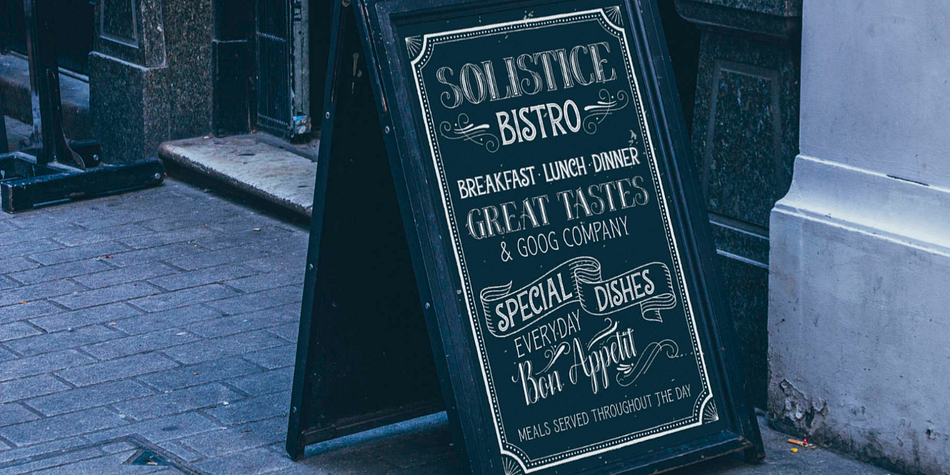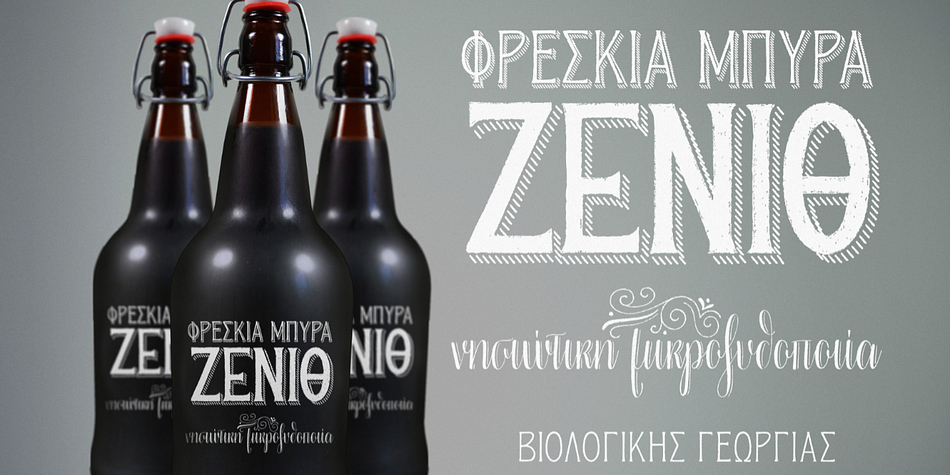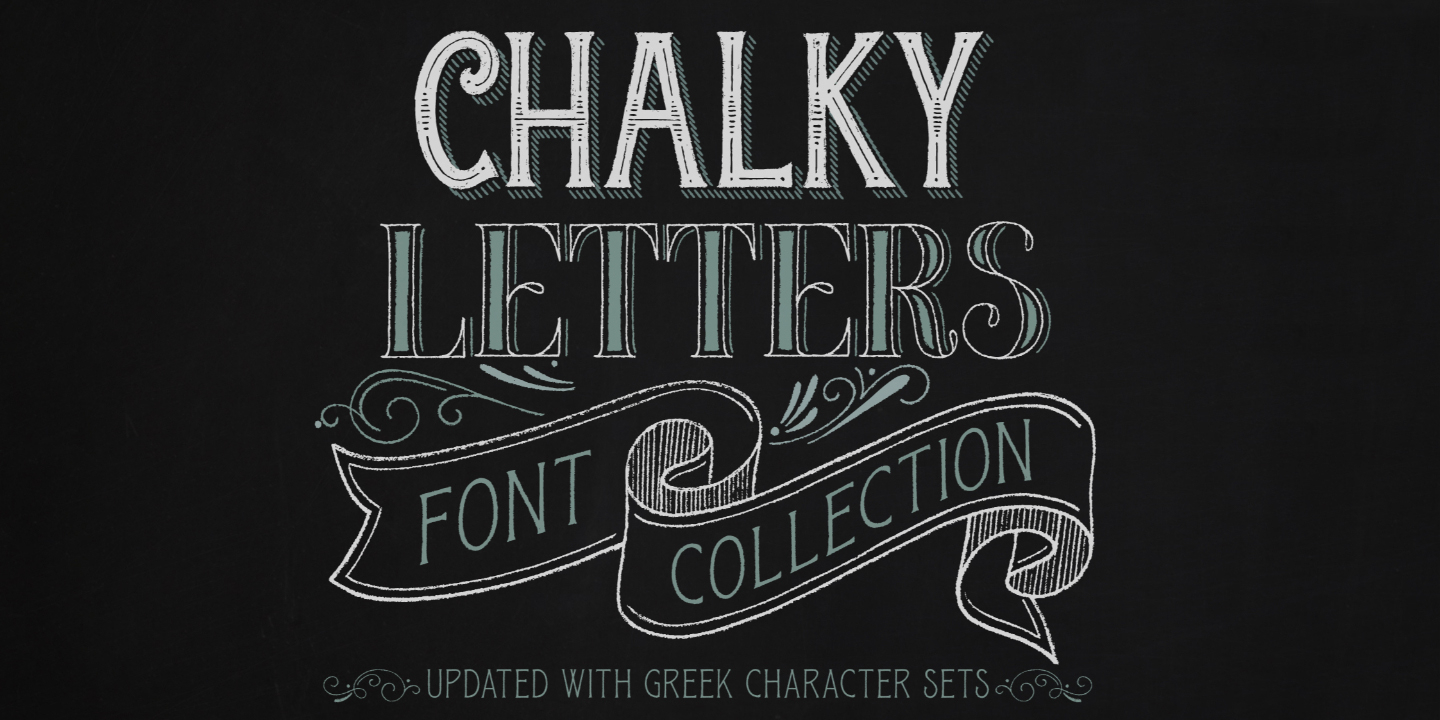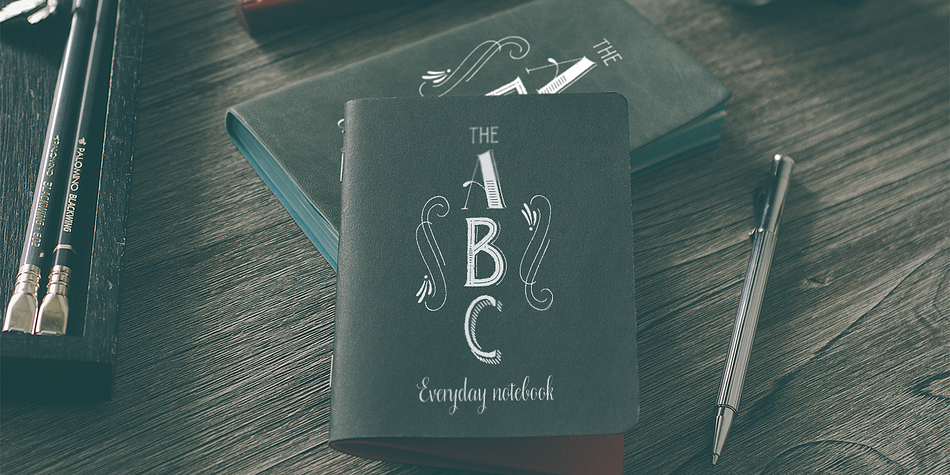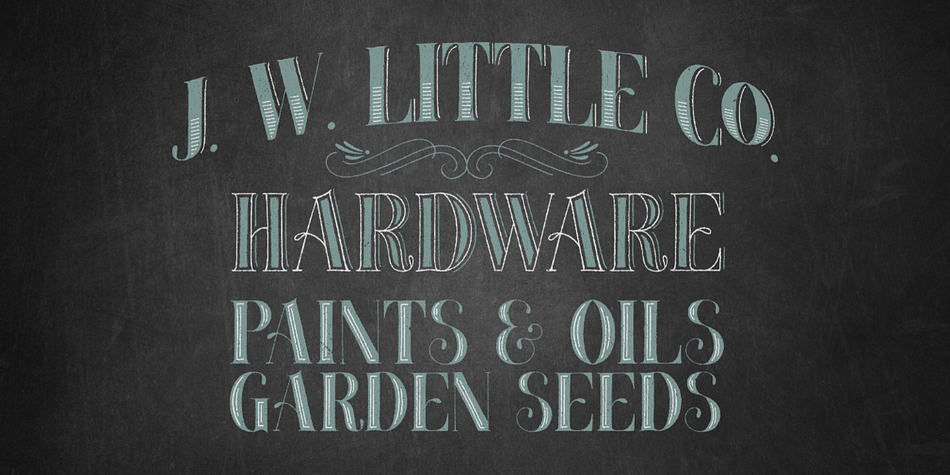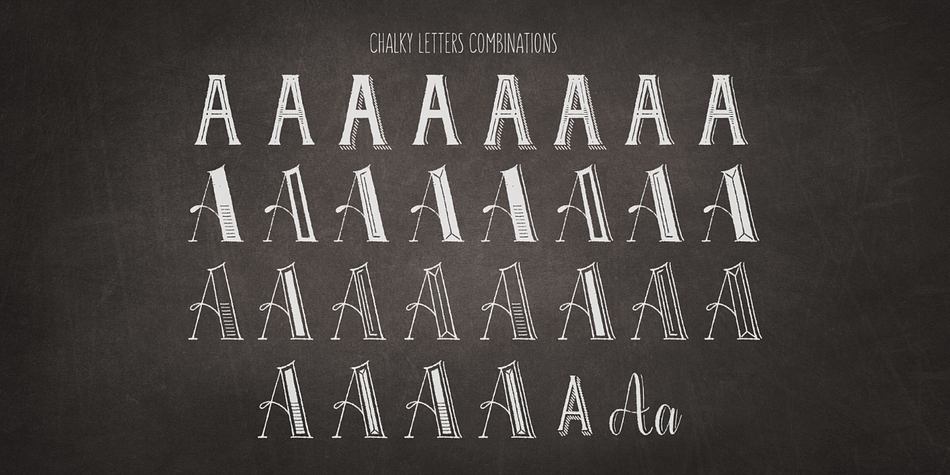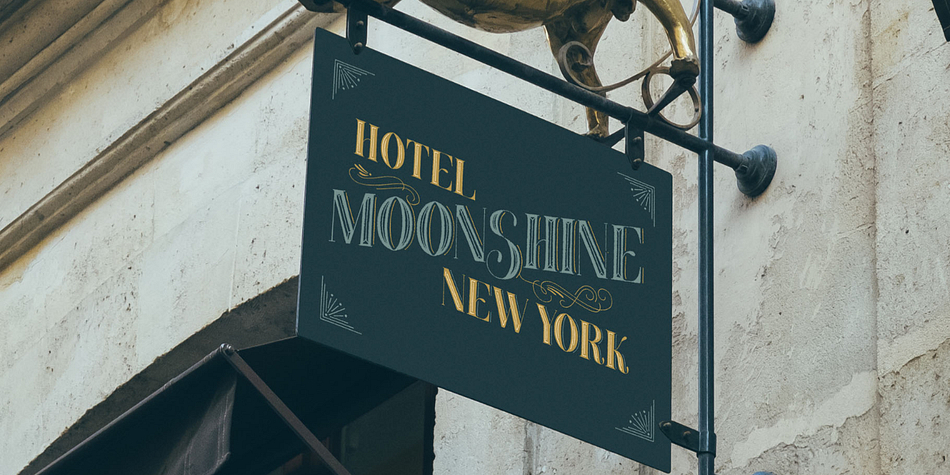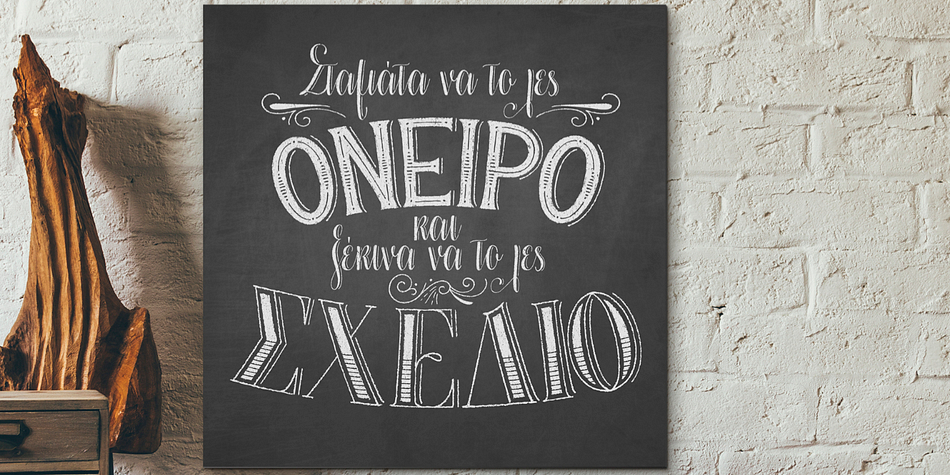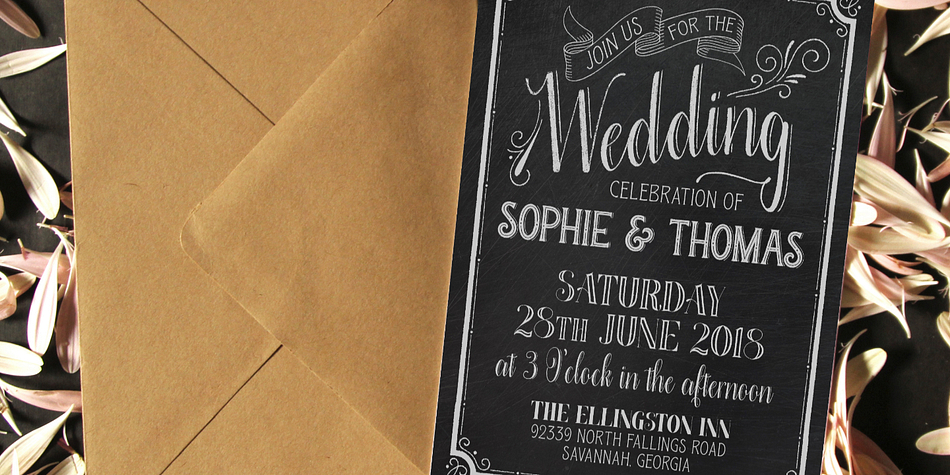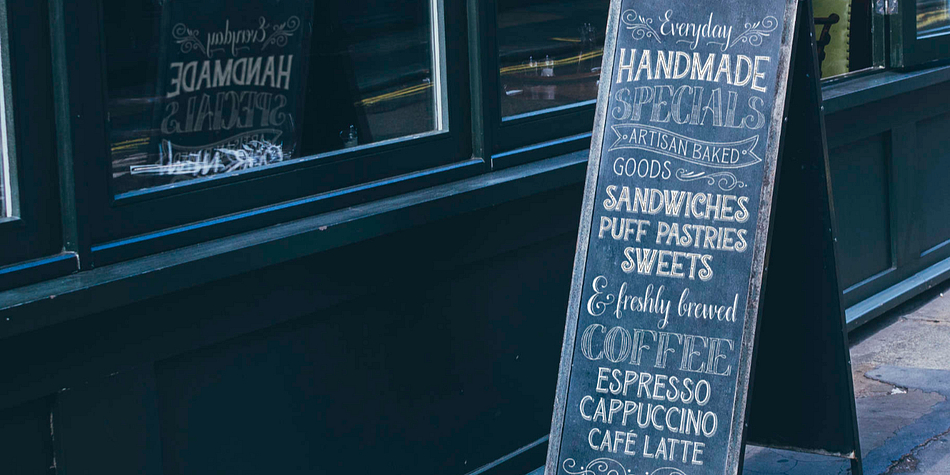
Designed by Anastasia Dimitriadi, Chalky Letters is a multiple classification font family. This typeface has seventeen styles and was published by DimitriAna.
Chalky Letters is a multilayered font collection, created for the chalk-lettering lovers. Letters and ornaments are carefully hand-drawn to resemble the authentic chalk effect. 4 different vintage typographic styles along with a variety of decorations and shadow effects make endless combinations. The collection gives the designer the freedom to use it in any typographic project he can imagine: greeting cards, labels, large scale prints, branding, packaging, signage, editorial design.
Typographic styles:
CL-Heading: All caps, old fashioned, serif, with 2 styles of decoration and shadow effects
CL-Label: All caps, heavy, serif, vintage, solid and outline, with 4 styles of decoration and a shadow effect
CL-Script: Simple modern calligraphic with terminal forms and 2 alternate styles of descenders. Combined with a shadow effect.
CL-Note: All caps, simple, thin, old fashioned, with a shadow effect
CL-Extras: 2 styles of ribbons, frames and ornaments.
Note: Chalky Letters have an authentic chalk look, which means every glyph contains numerous nodes.